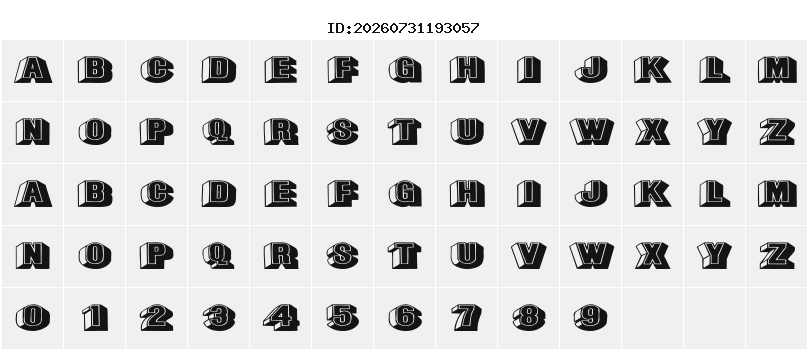
LeeCaps Ex Preview
• Font Name: LeeCaps Ex
• Full Font Name: LeeCaps Ex
About LeeCaps Ex.ttf
LeeCaps Ex.ttf is a modern, elegant sans-serif font designed for ultimate readability and visual harmony. Perfect for branding, headlines, web design, and print materials.